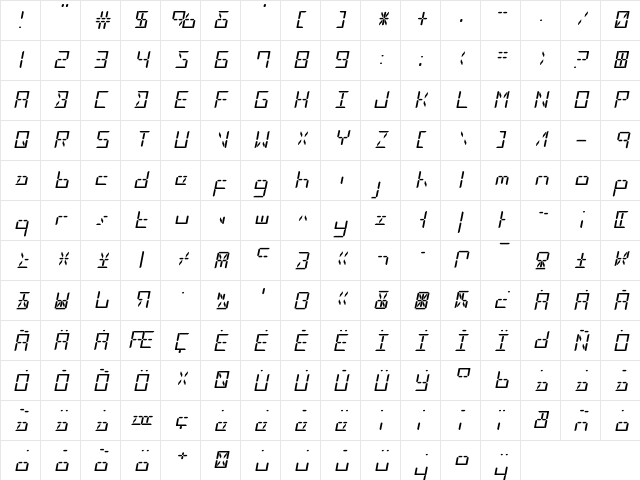
LED Sled Expanded Italic Expanded Italic
Design Context for LED Sled Expanded Italic Typeface
LED Sled Expanded Italic takes a measured approach to typography — its balanced proportions and neutral character make it a reliable workhorse for both digital and print work. Its italic angle brings a sense of urgency and motion to the letterforms.
Pro Tip: Try LED Sled Expanded Italic for annotation and caption copy alongside an upright companion — the contrast in angle creates a dynamic but ordered typographic system.